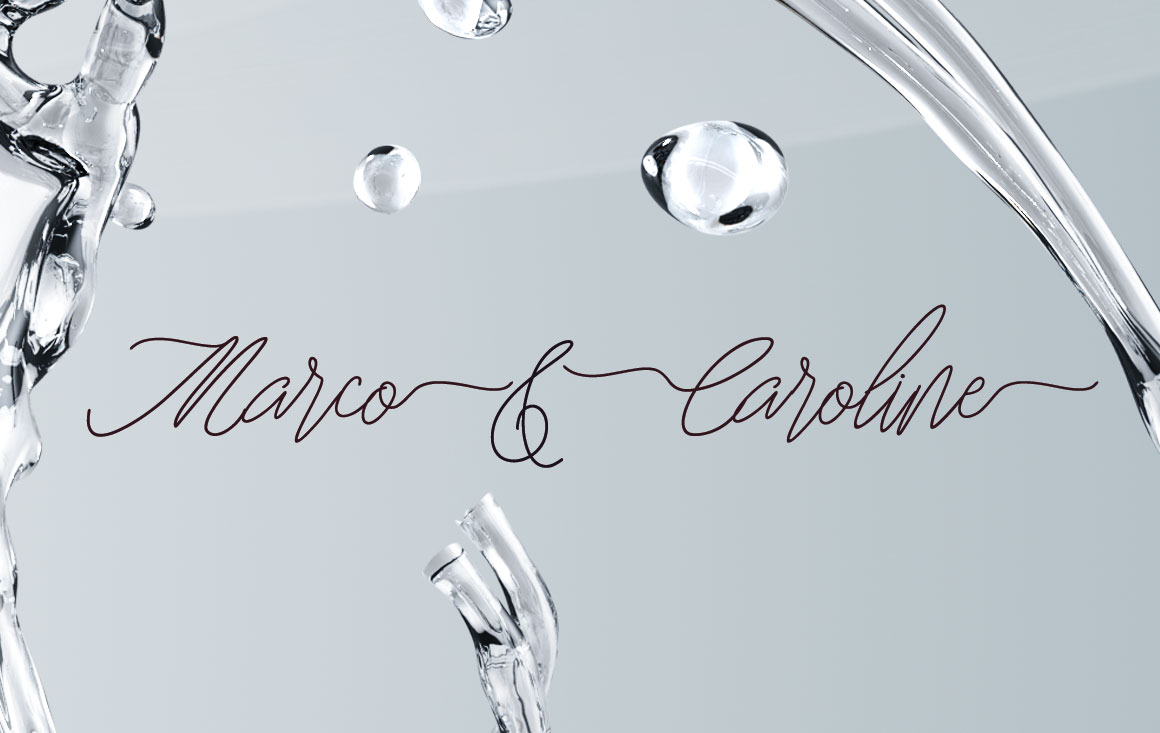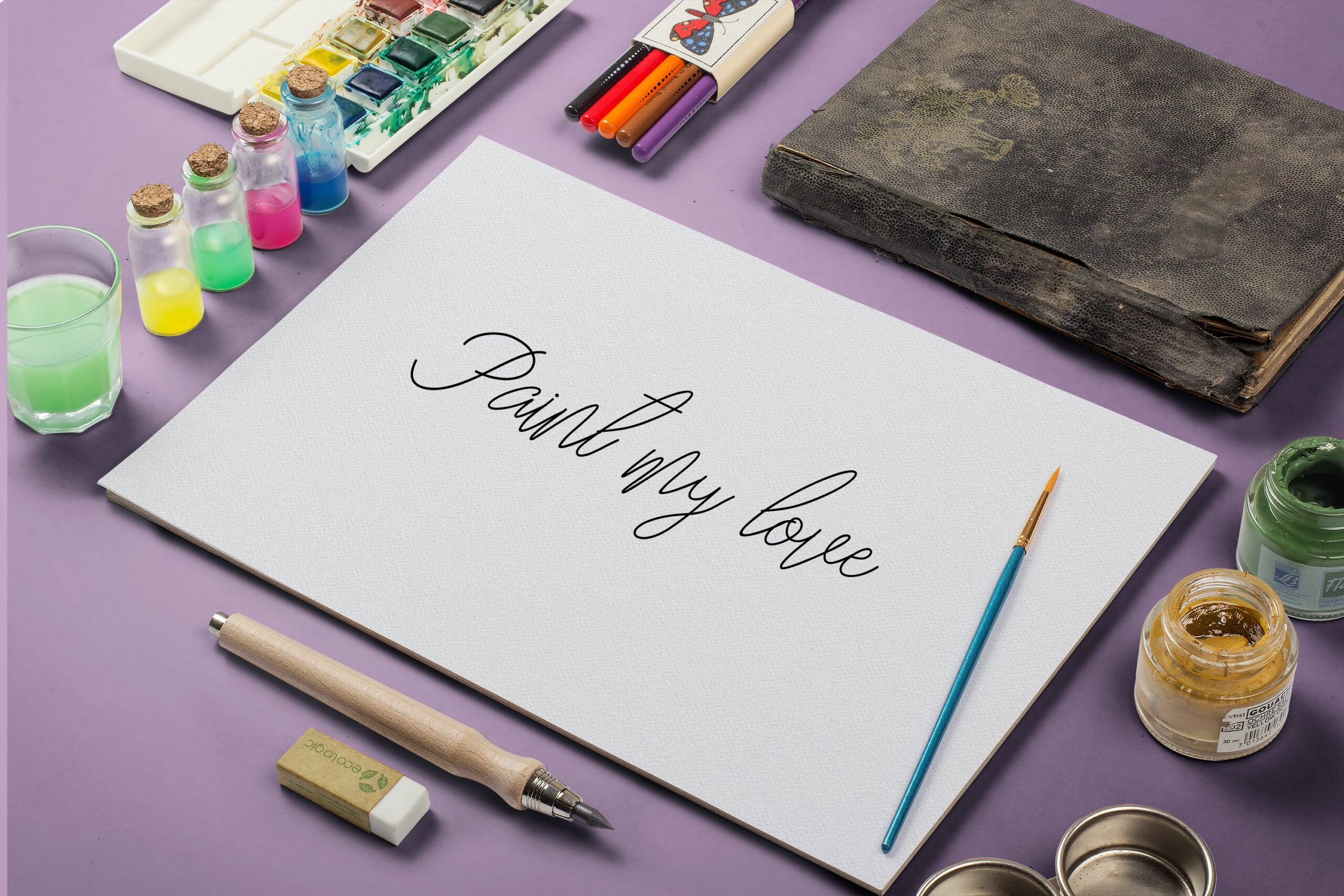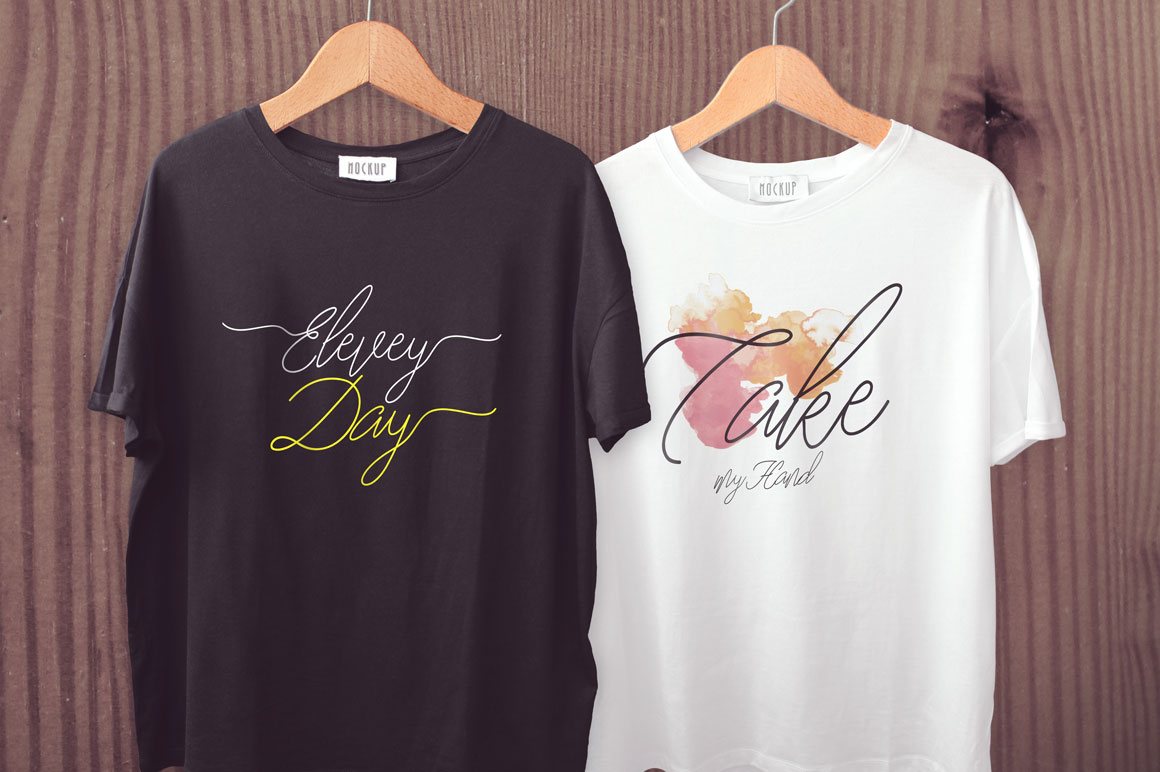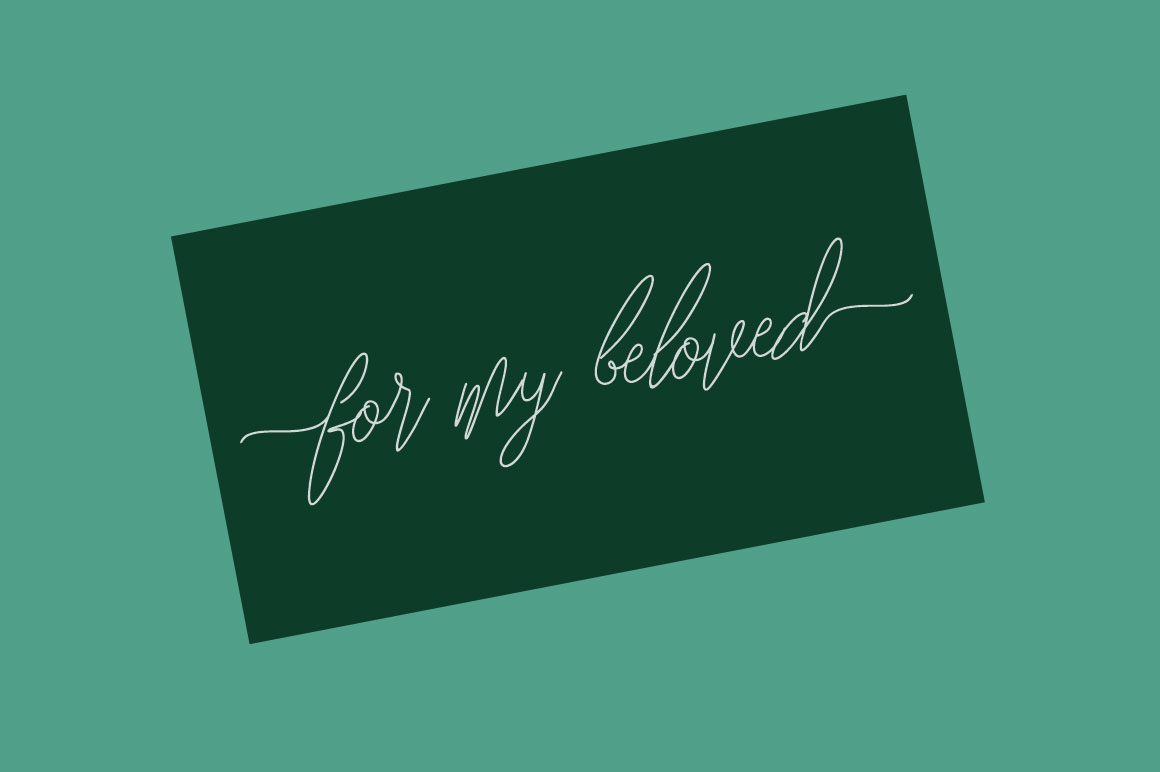
HomeScript FontsCarolina Font Script Fonts Carolina Font FacebookXPinterestWhatsApp Carolina Font Poster 2 Carolina Font Poster 3 Carolina Font Poster 4 Carolina Font Poster 5 About Carolina Font Carolina is a fine monoline script font. DOWNLOAD ON CREATIVE FABRICAThis font is sold and delivered by Creative Fabrica. Font Canyon may earn a commission if you buy through this link. People also explored Maladewa Font Peony Blooms Senopathi Font Dutalisa Joily Font Kingsmith Font Skinny Brook Font Nature Font Bouffly Alice Bold Font Halloween Khalled Font 325 0 TagsCarolina Font Previous articleConfident FontNext articleAnton Font LEAVE A REPLY Cancel reply Comment: Please enter your comment! Name:* Please enter your name here Email:* You have entered an incorrect email address! Please enter your email address here Website: Save my name, email, and website in this browser for the next time I comment. Personal Use Free Imelda Personal Use Free Read more about this font Aragon Personal Use Free Read more about this font Senza Bella Personal Use Free Read more about this font Dream Personal Use Free Read more about this font BLOG Exploring Font Trends Shaping Communication in the Digital Era Fonts, like all design elements, are subject to trends. They play a crucial role in communicating a brand's personality,... 5 Fonts That Will Dominate Design Trends in 2026 How to Cut Any Font on Cricut: Convert a Font to SVG (Free) Using Fonts in Digital Marketing: Tips to Strengthen Your Brand Identity